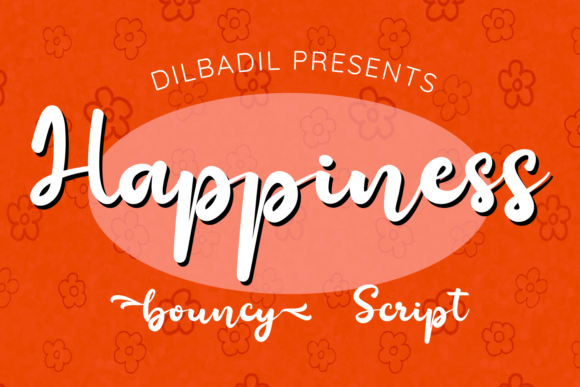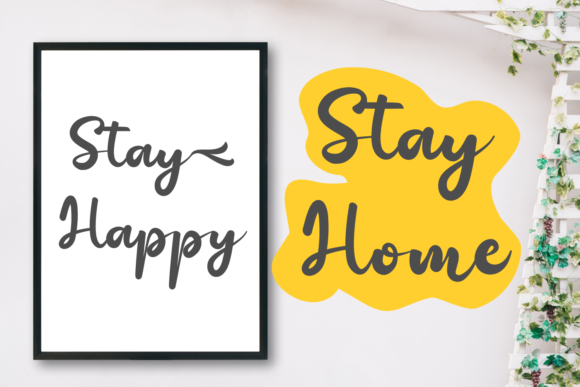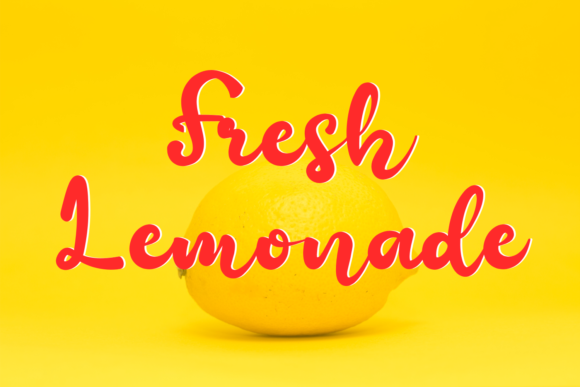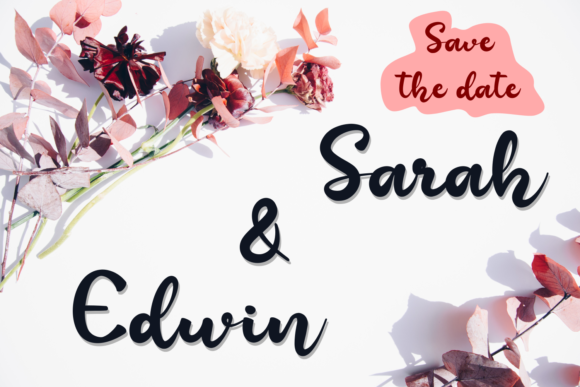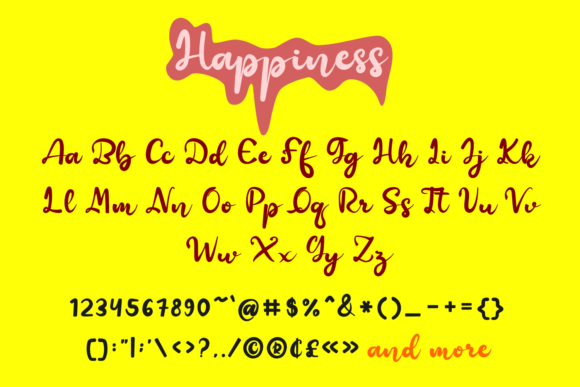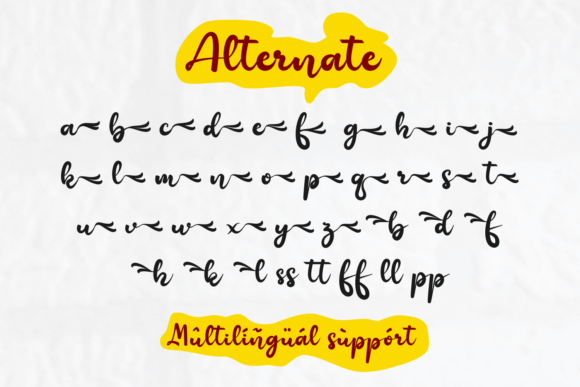
Happiness Font
About Happiness Font
Happiness is a magical handwritten font carefully created with a touch of elegance. This fun font is the perfect font for making original and outstanding designs.